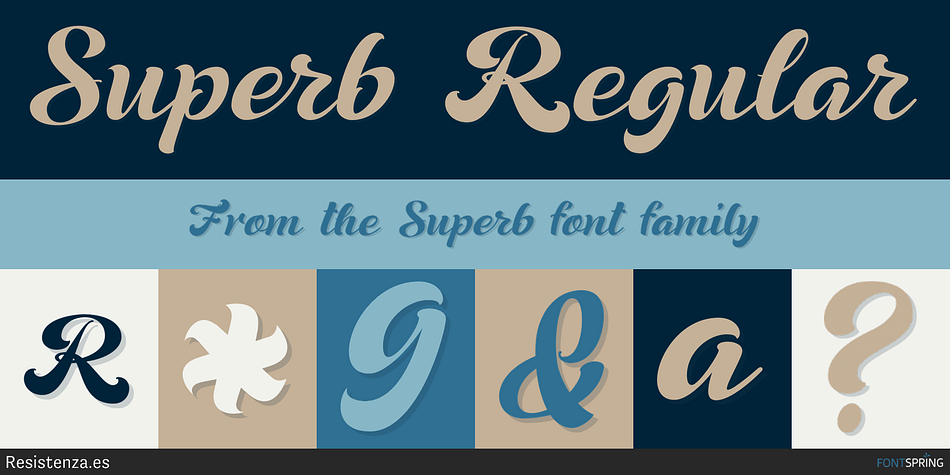
Superb is a brush script font family. This typeface has two styles and was published by Resistenza.es.
Superb Regular
Superb is a new typeface based on real brush pen script and also influenced by lettering shapes from the sixties and seventies.
The font includes various swashes with volume and curls.. Superb’s letters got high contrast and some psychedelic curves.
This font includes negative figures and a full alphabet set with cut out shapes.